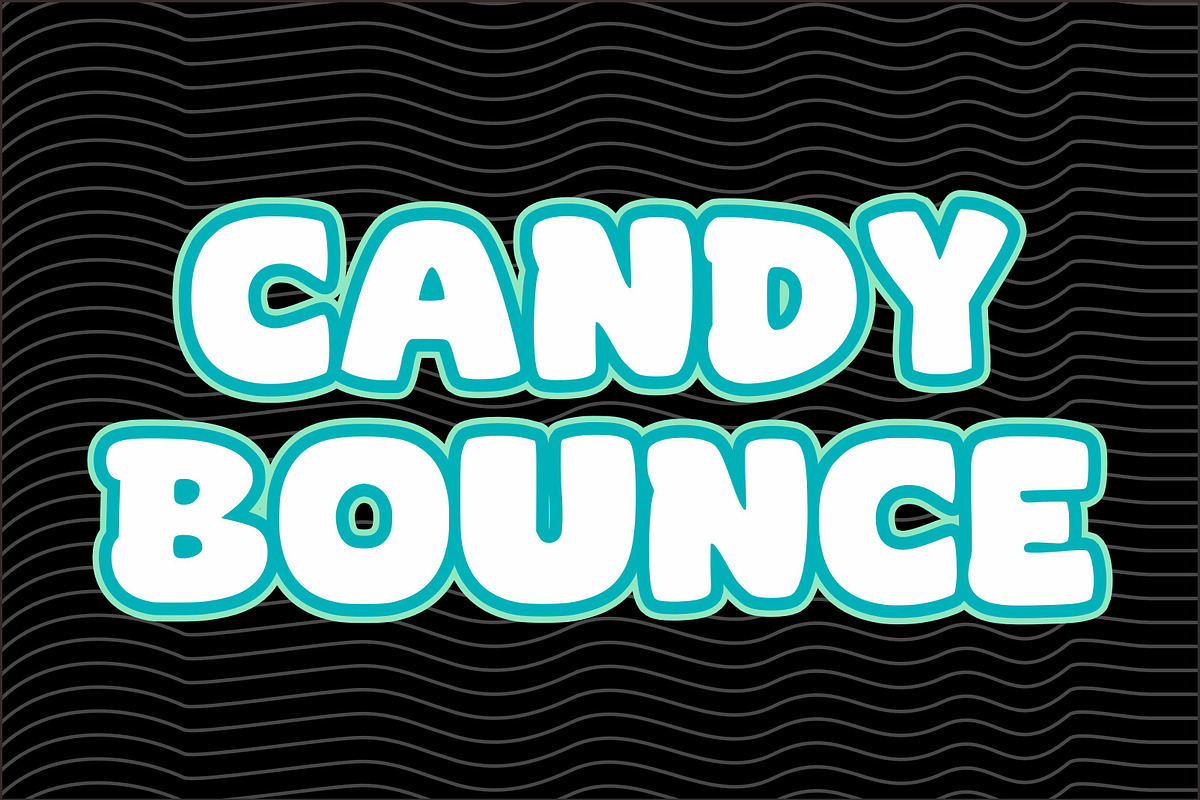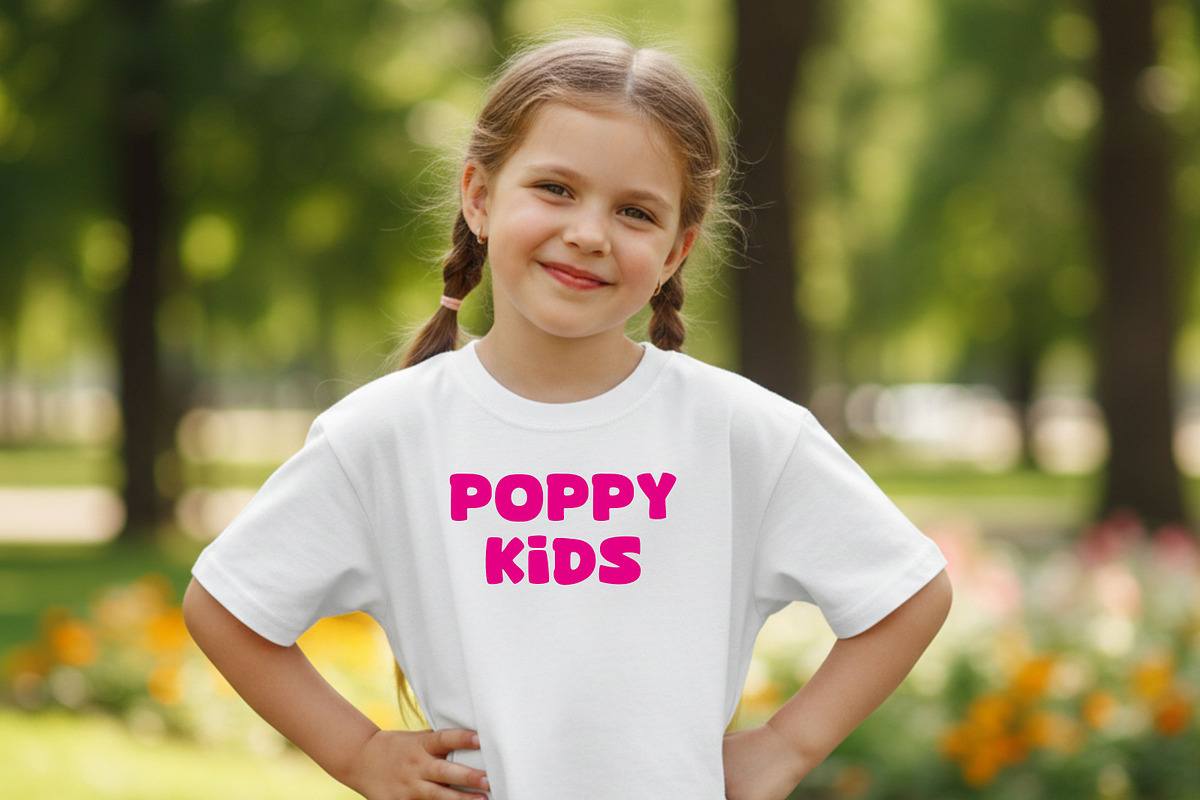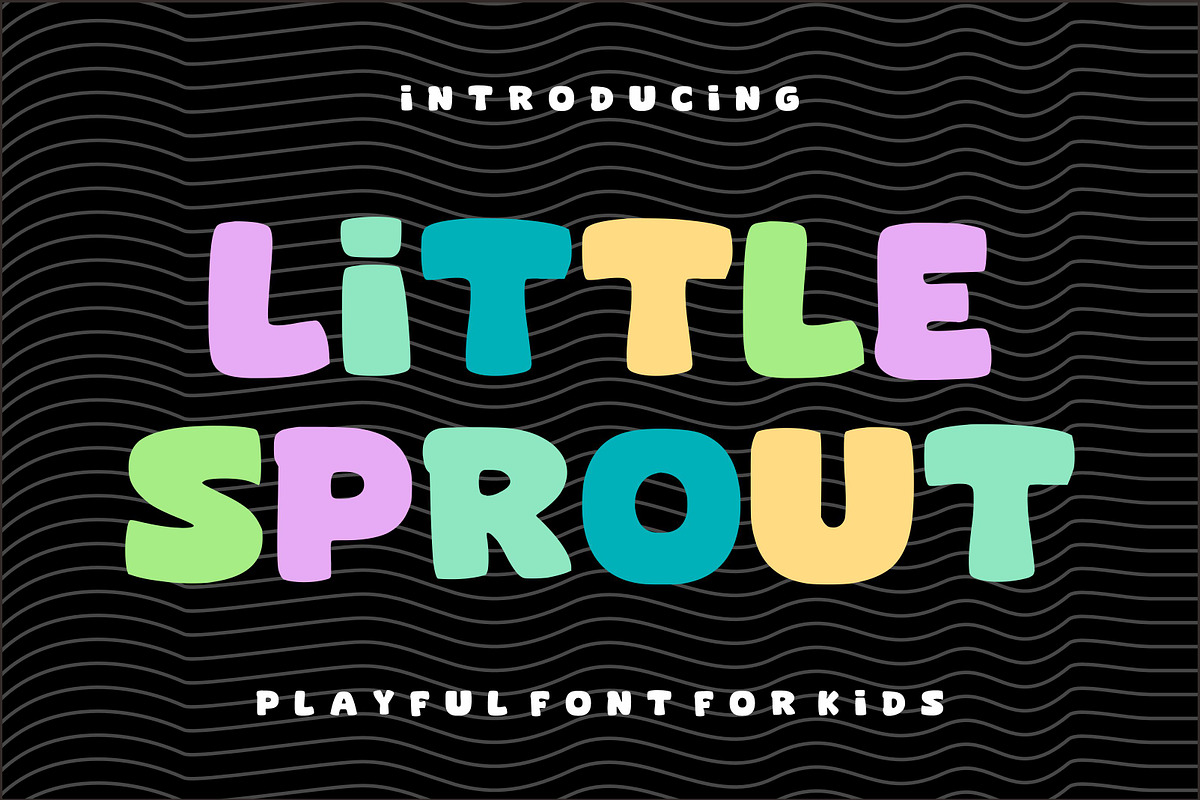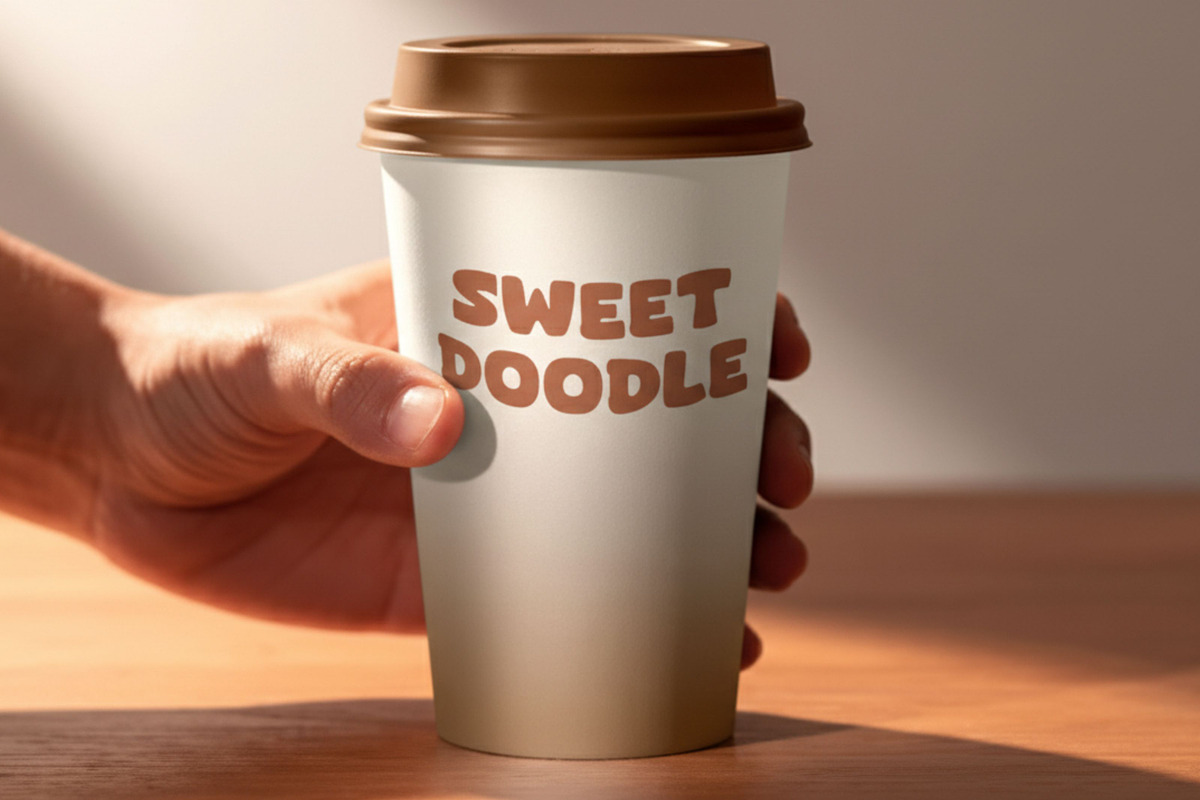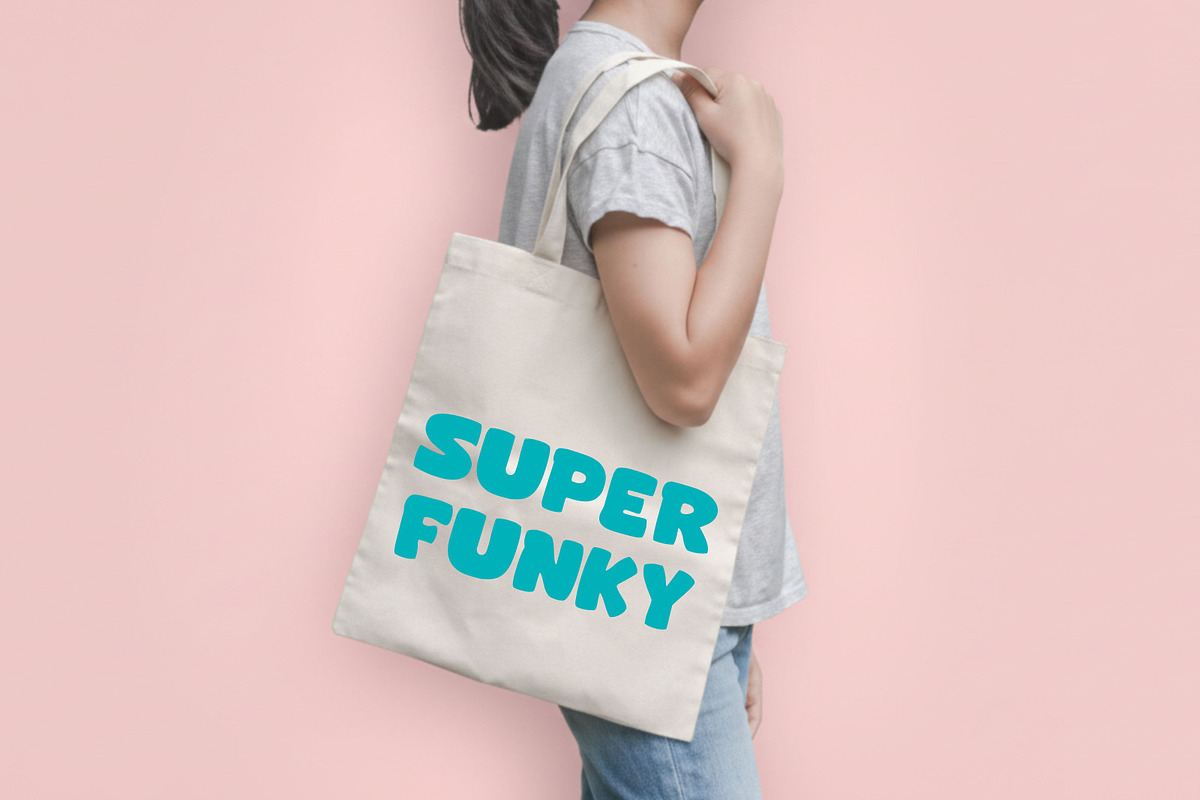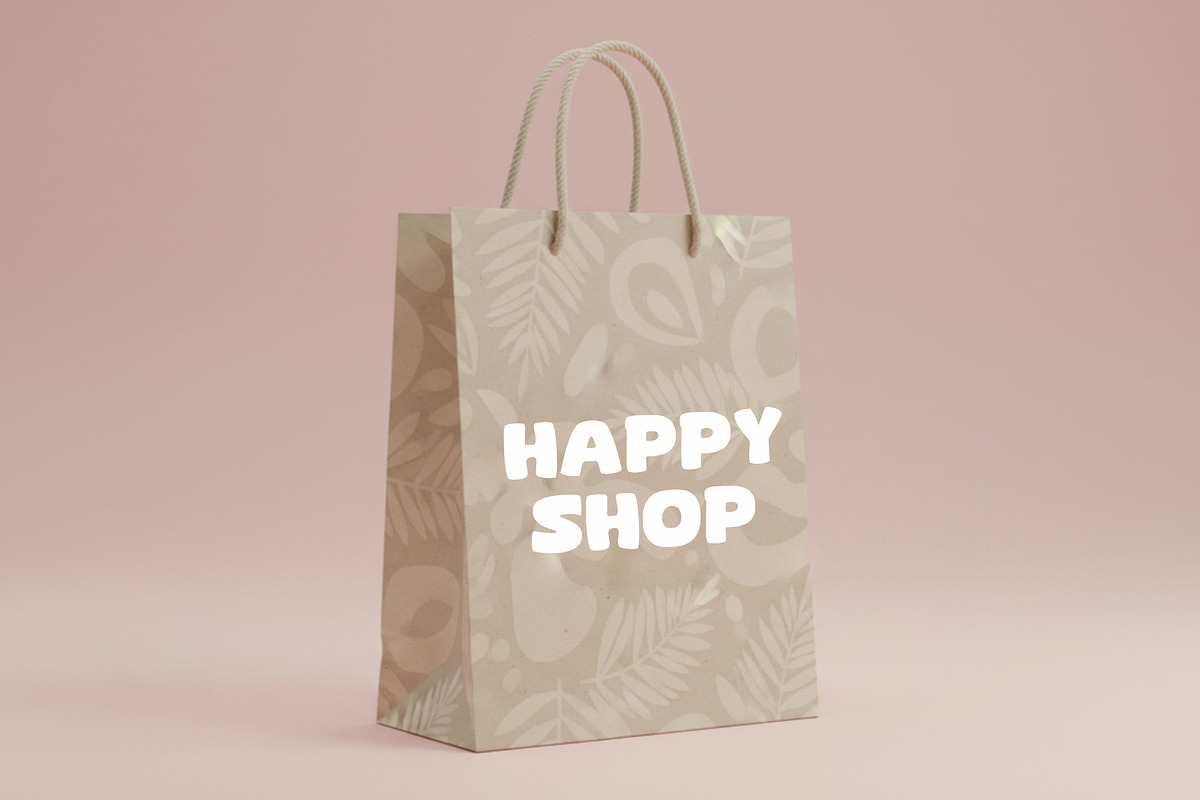
Little Sprout
Little Sprout is a fun and cheerful display font designed especially for kids-themed projects. With its chunky shapes, soft curves, and colorful personality, this font brings a joyful and friendly vibe to any design. Perfect for creating eye-catching titles, playful branding, and creative crafts that need a touch of happiness and imagination.
Features: Uppercase letters Lowercase letters Numbers & punctuation Cute and bold character shapes Easy to read and highly legible
Perfect For: Kids branding Children’s books Educational materials Posters & banners T-shirt designs Stickers & crafts Birthday invitations